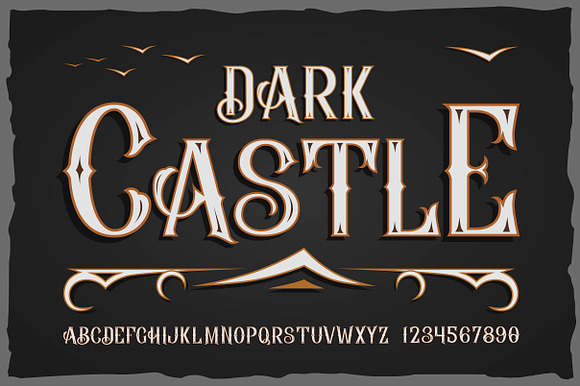
Dark Casrle OTF vintage label font.
Vintage OTF vintage label font.
Why Dark Casrle OTF vintage label font. is worth a look
Dark Casrle OTF vintage label font. by Fractal fonts & graphics fits naturally into Branding, posters, packaging, typography.